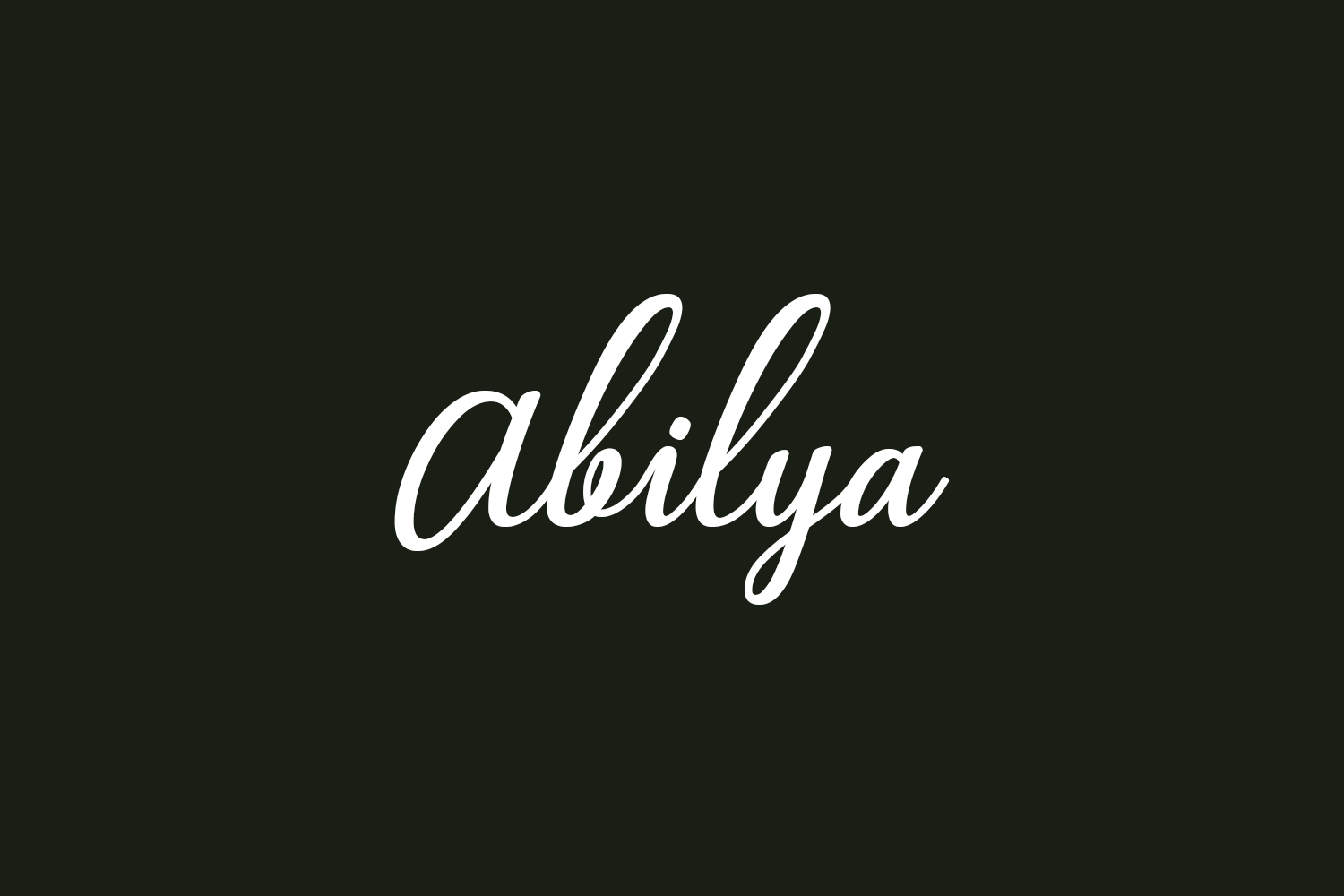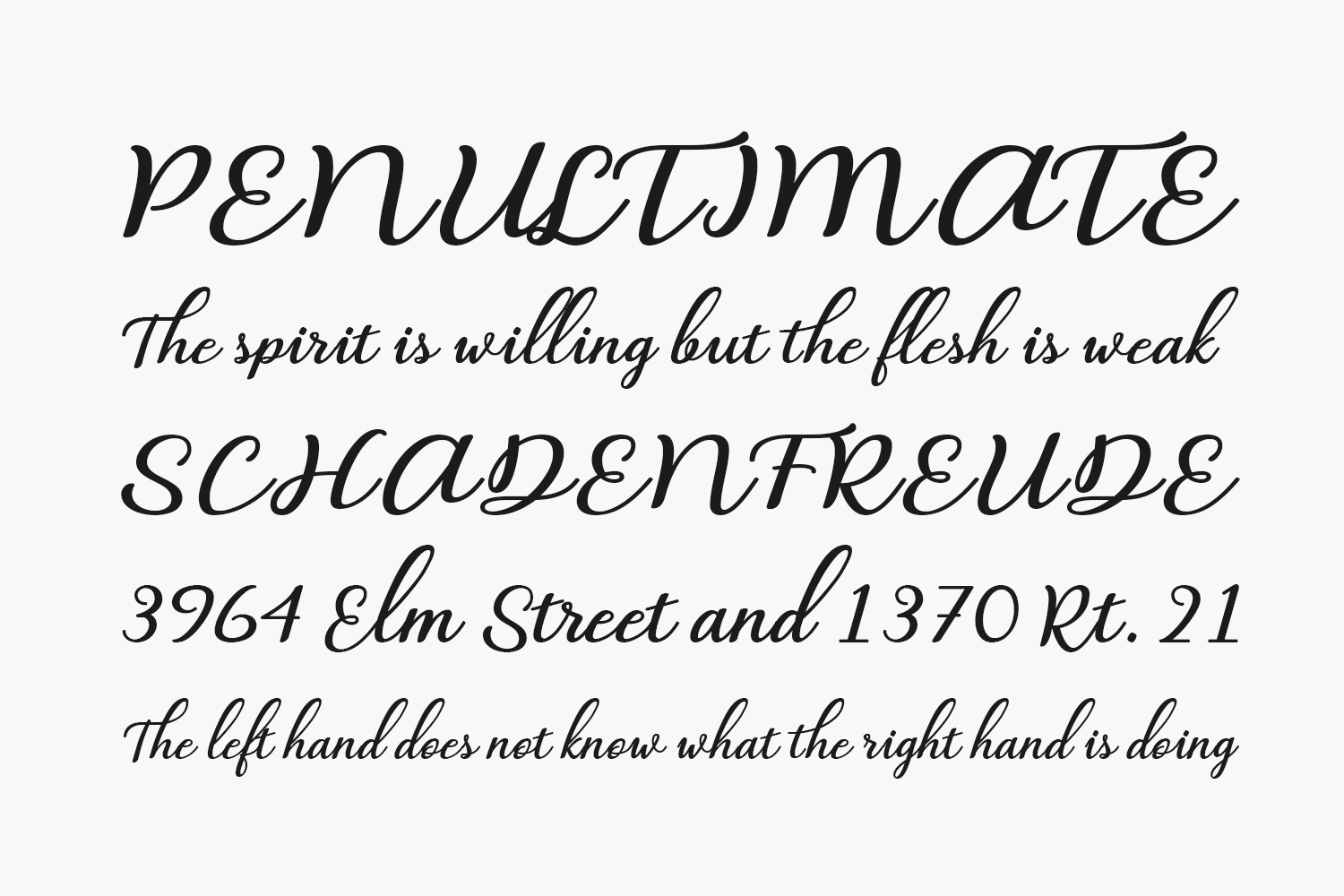
Abilya Free Font is an elegant script font, perfect for a ton of different project types. This elegant font is ideal for romantic messages, invitationals, and more. Abilya Free Font was designed by 7NTypes and is free for personal use only. Please purchase the full version for commercial use.